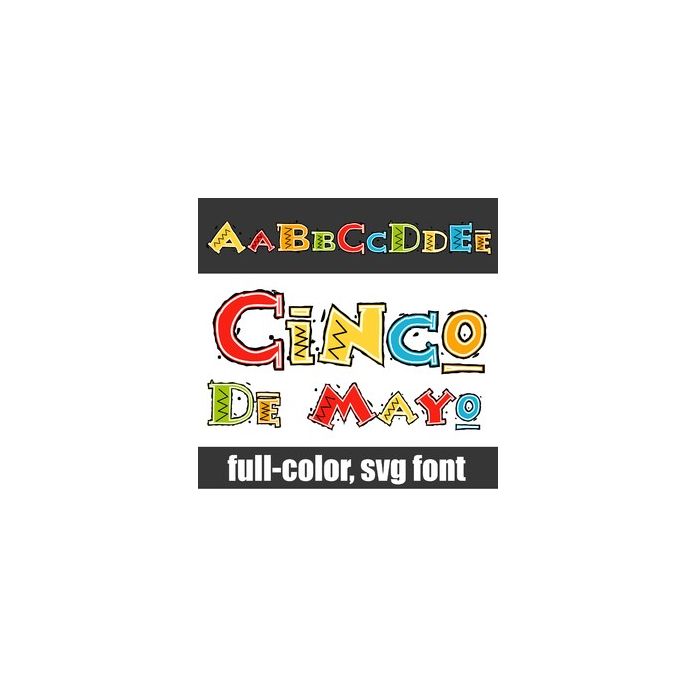
This full-color font features a fiesta style, colorful alphabet with black confetti. There is an alt version you can access through your system's character map that contains additional colors of all the letters.